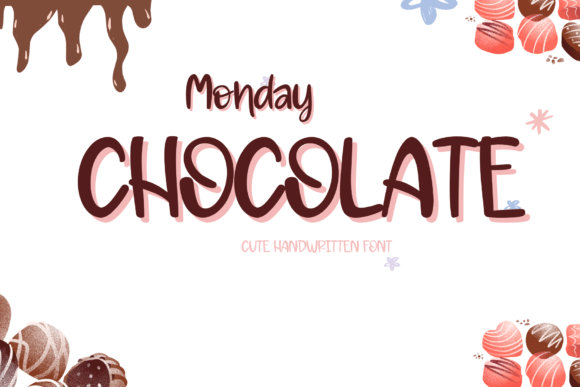
Step into the world of elegance and charm with Monday Chocolate Font, a captivating script font created by nstudio design. This exquisite handwritten font will add a touch of sophistication and playfulness to your designs, making them stand out from the crowd.
Monday Chocolate is not just a font; it's an expression of creativity and individuality. Its unique and enchanting style will captivate your audience, leaving a lasting impression. Whether you're a seasoned designer or just starting, this font is the perfect tool to elevate your projects to new heights.
With its versatility and adaptability, Monday Chocolate can be used in a wide range of design projects. From logos and branding to social media posts and advertisements, this font will add a touch of charm and personality to all your creations. It's perfect for product packaging, product designs, labels, photography, watermarks, invitations, stationery, and so much more!
Imagine the possibilities! Create stunning wedding invitations that exude elegance and romance. Design eye-catching social media posts that will captivate your followers. Craft unique logos that reflect your brand's personality and values. The possibilities are endless.
But Monday Chocolate is more than just a beautiful font; it's a font with a story. Each letter is carefully crafted to convey a sense of joy and playfulness, making it the perfect choice for projects that aim to evoke positive emotions.
So, if you're looking for a font that will make your designs shine, look no further than Monday Chocolate. Its charm, versatility, and captivating style will transform your creations into works of art. Embrace the beauty of handwritten elegance and let Monday Chocolate take your designs to the next level.